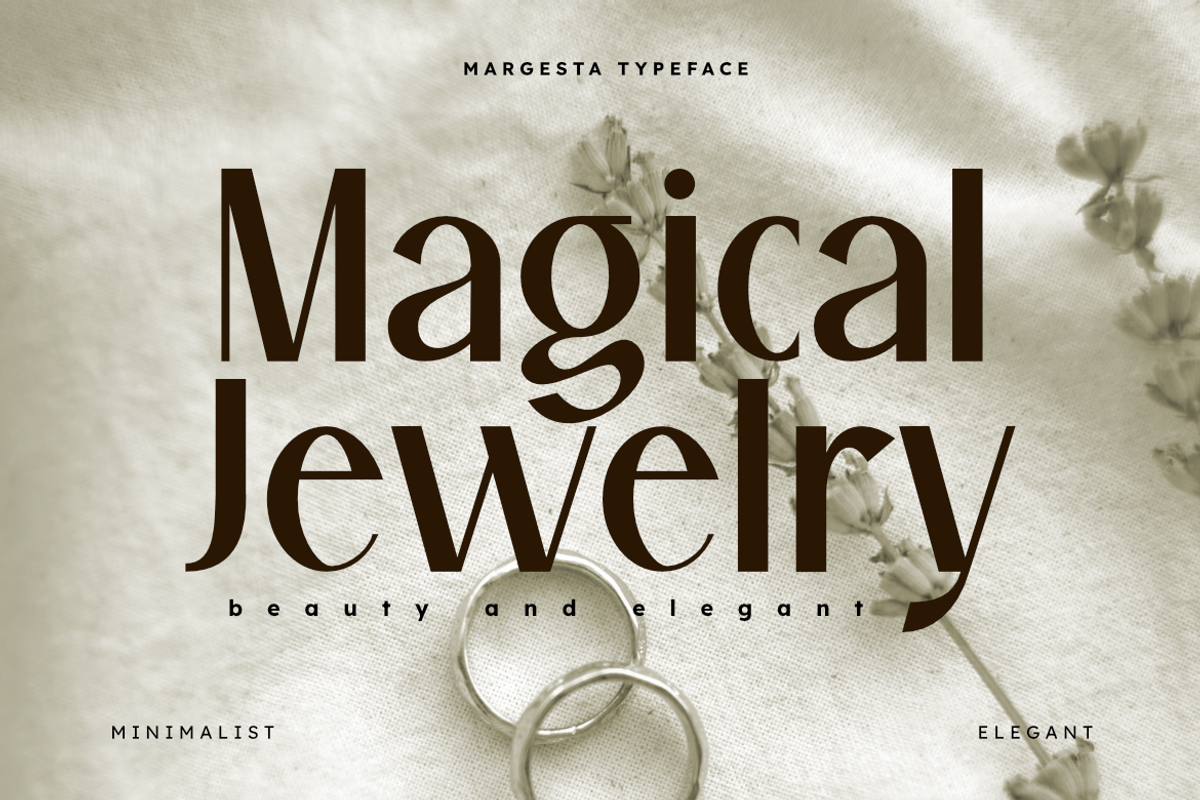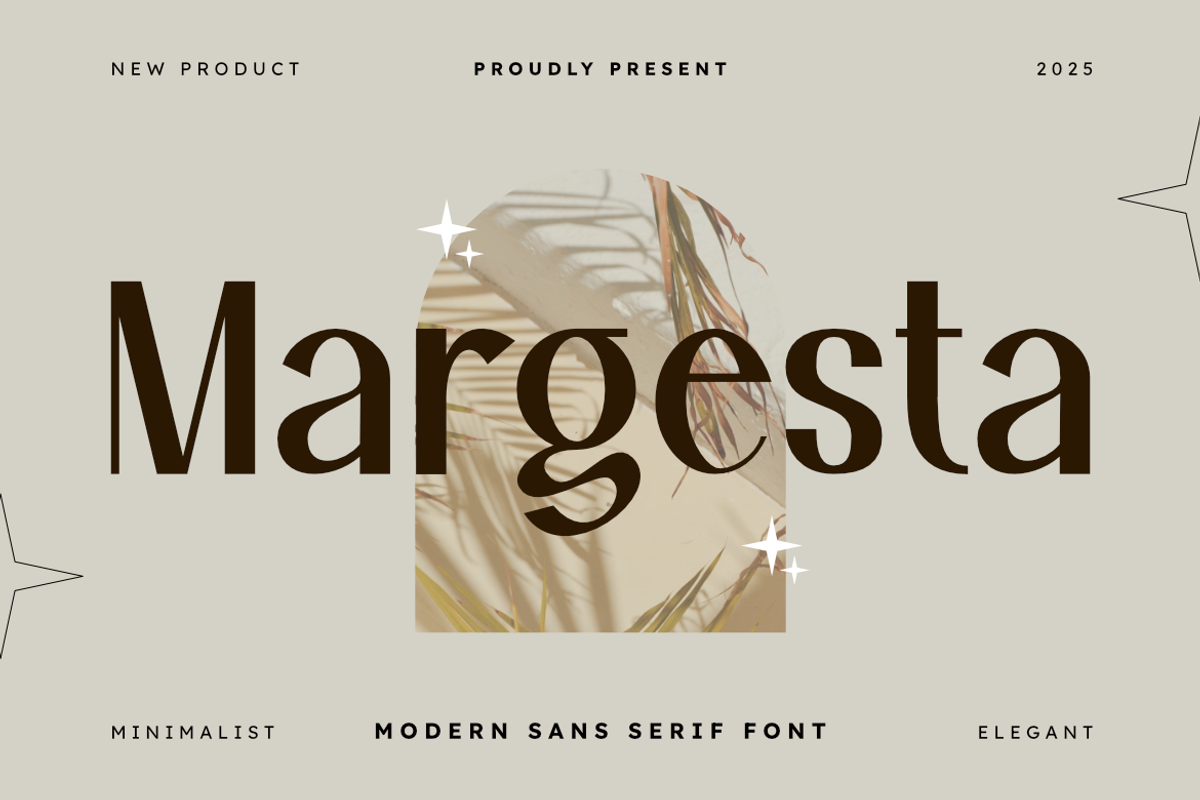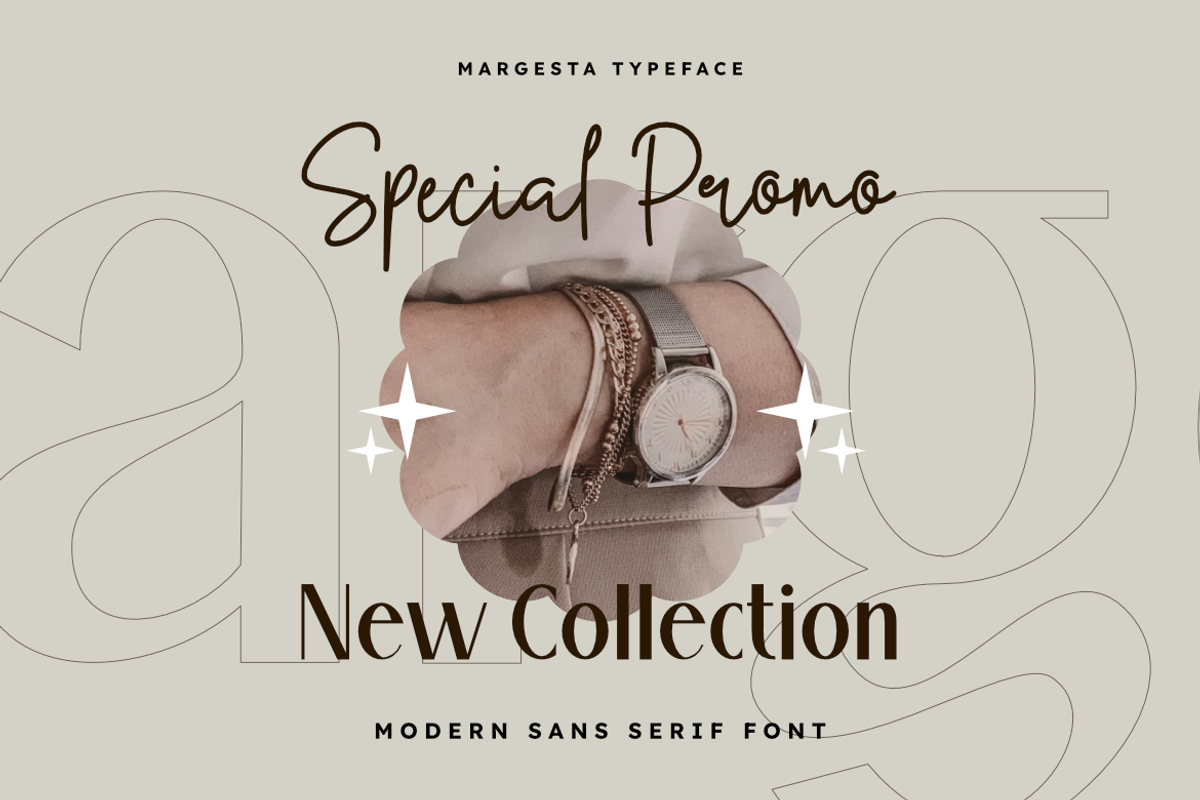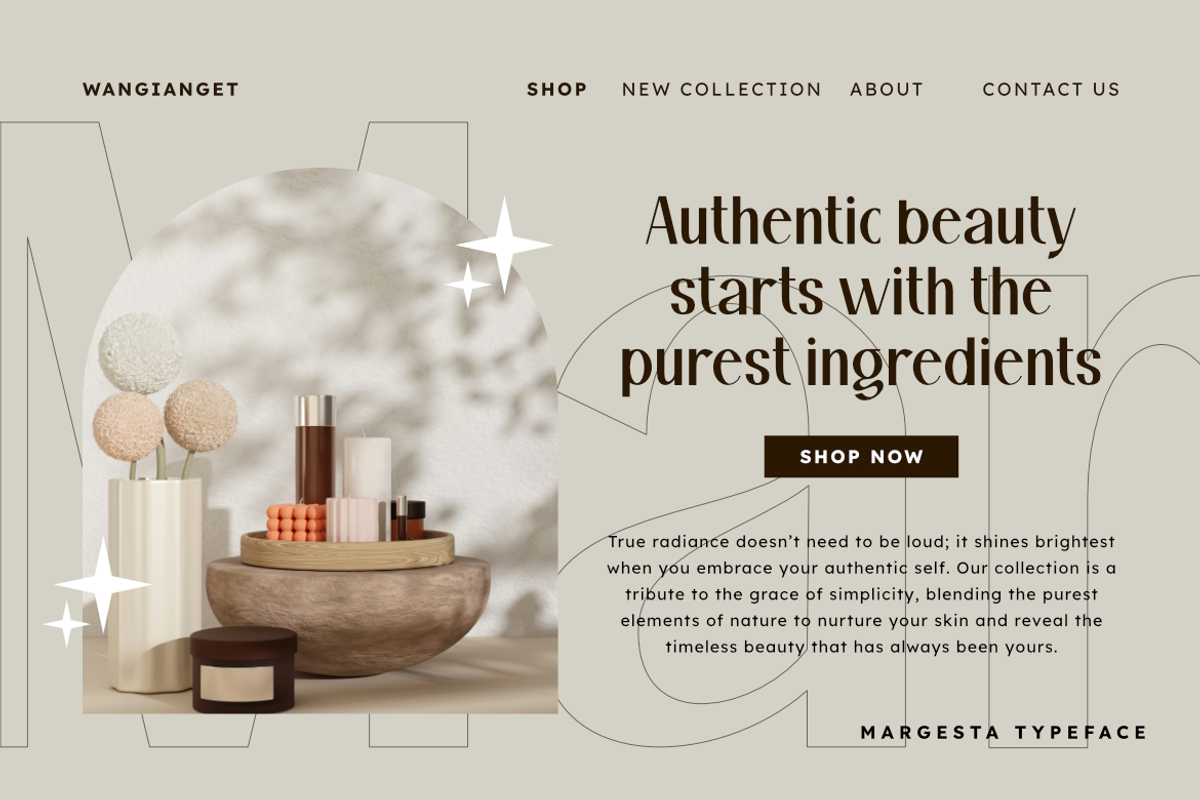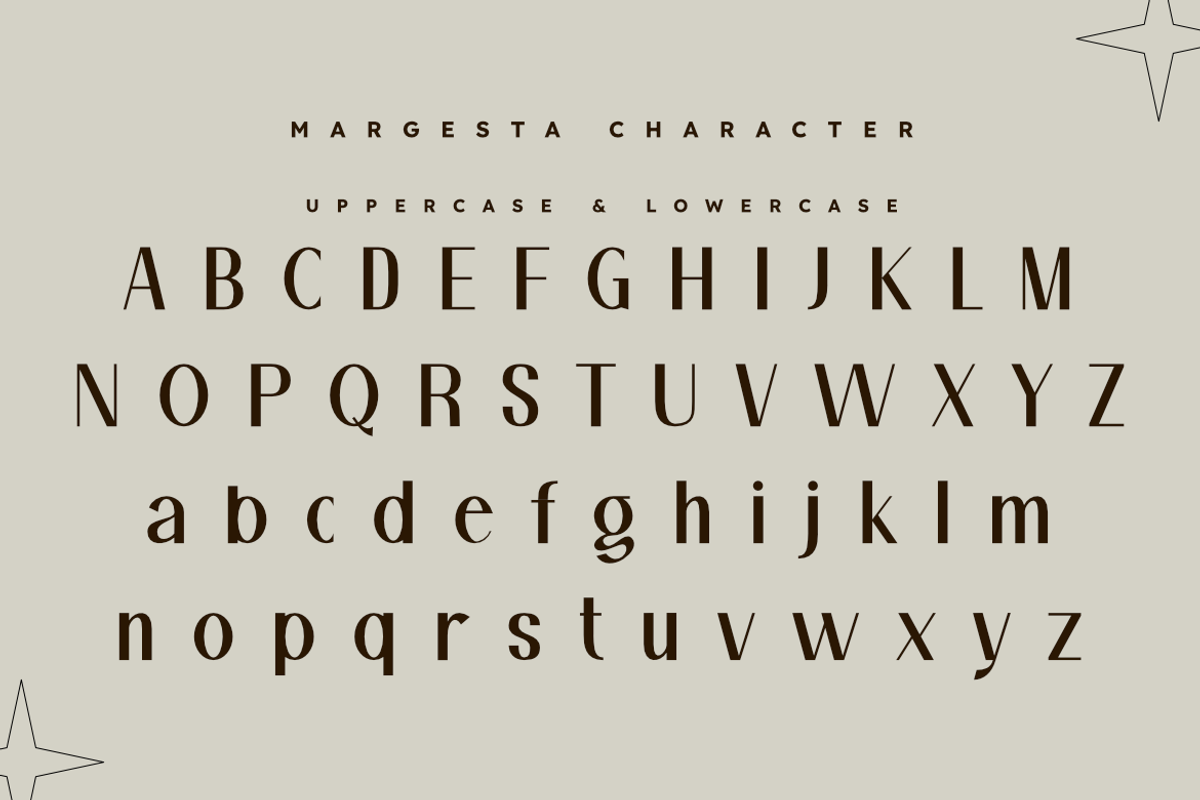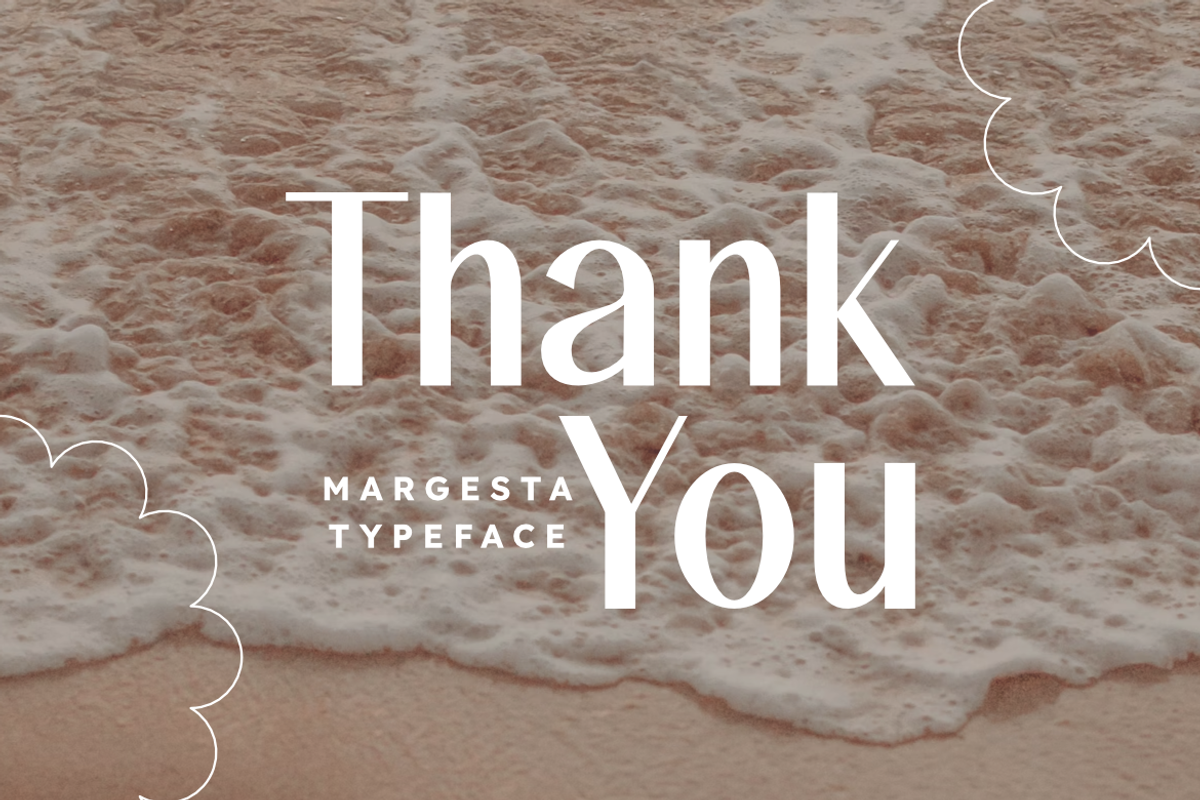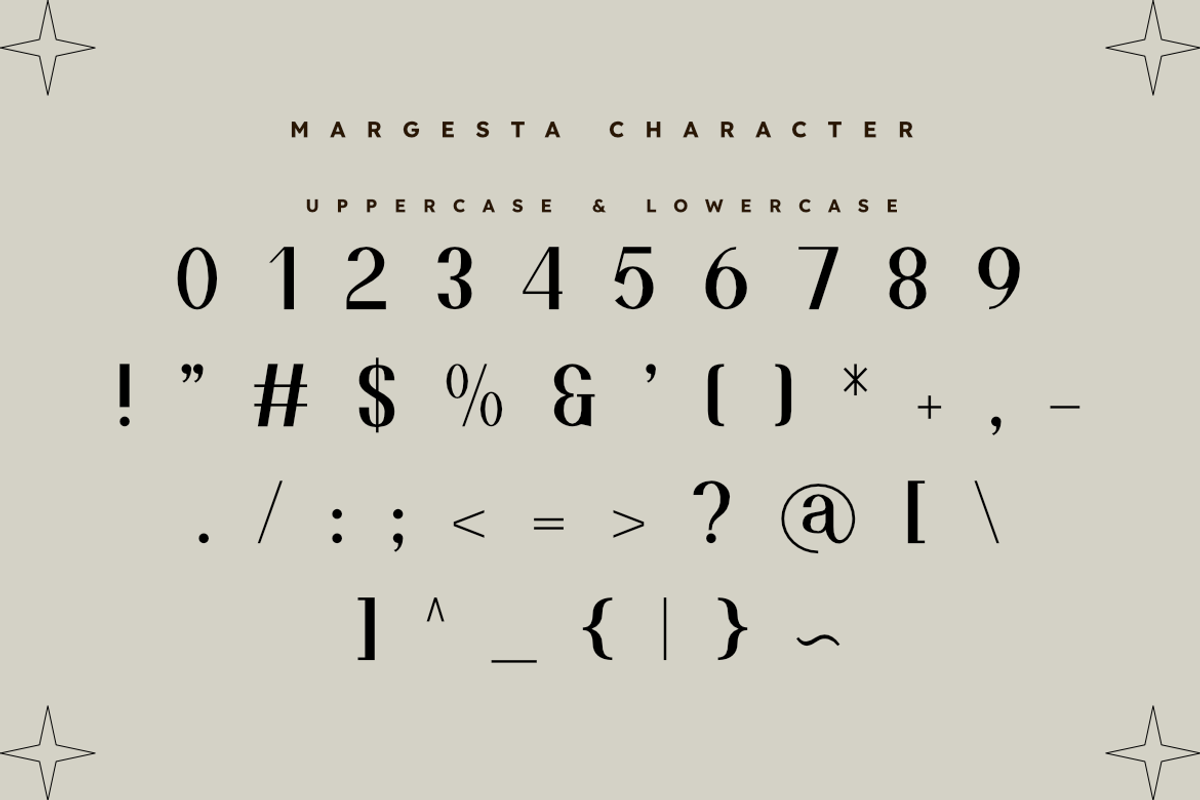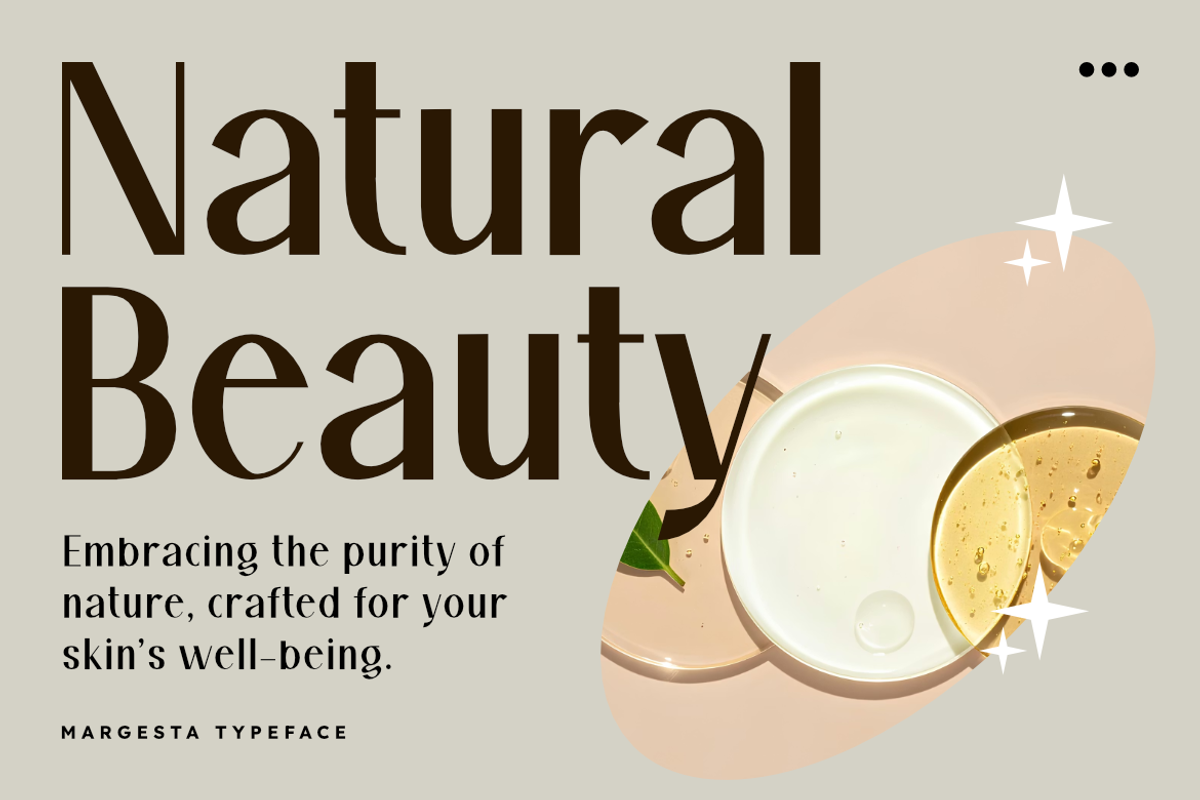
Margesta | Elegant Modern Sans
Meet Margesta, a stunning modern sans serif from Masyafi Studio that perfectly captures the "quiet luxury" aesthetic. Designed for creators who appreciate the beauty of minimalism, Margesta blends the clinical precision of a sans serif with graceful, flowing accents that evoke a sense of high-fashion sophistication.
Margesta is your go-to typeface for projects that require an upscale, boutique feel. It breathes life into minimalist logos, adds a chic touch to magazine layouts, and elevates social media branding to a professional level. It’s a font that doesn't need to shout to be noticed—its elegance speaks for itself.
Ideal Applications:
- Boutique Branding: Create logos that feel expensive and exclusive.
- Fashion & Beauty: Perfect for cosmetic packaging and lifestyle magazines.
- Interior Design: Ideal for lookbooks, brochures, and architectural portfolios.
- Modern Wedding: A great choice for minimalist and contemporary stationery.
- Standard Character Set (Uppercase & Lowercase)
- Numbers, Punctuation, and Multilingual Support